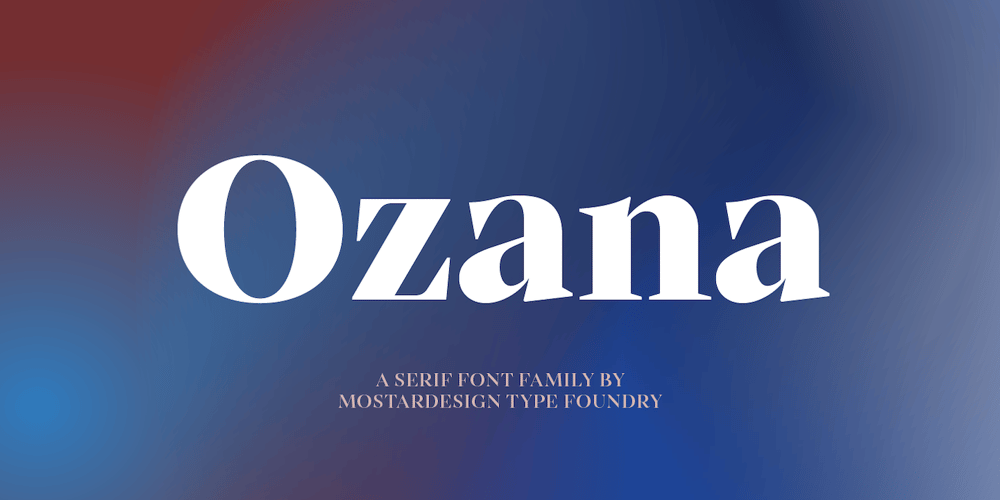
Ozana Pro Text
Ozana Pro Text font
Ozana Pro Text Font Family was designed by Olivier Gourvat and published by Mostardesign. Ozana Pro Text contains 12 styles and family package options. Ozana Pro is a bracketed serif font family adapted to the professional requirements of graphic designers, web designers and mobile app developers. Comprised of 24 styles including 12 styles designed especially for headlines and 12 styles for text and long paragraph design. Ozana Pro is a very versatile family of fonts that can be used in many projects such as editorial design, branding or corporate identity creation, design of posters or logos, the creation of websites or the development of mobile applications. With this design of glyphs differentiated by the optical size according to the styles, the titles have a very graphic aspect while the long texts have a more classic design in order to keep an optimal readability in all cases. Ozana Pro is also equipped with powerful OpenType features such as case sensitivity, true small caps, ligatures, tabular figures, old styles figures, numbers circled. Ozana Pro is also available as a variable font family.